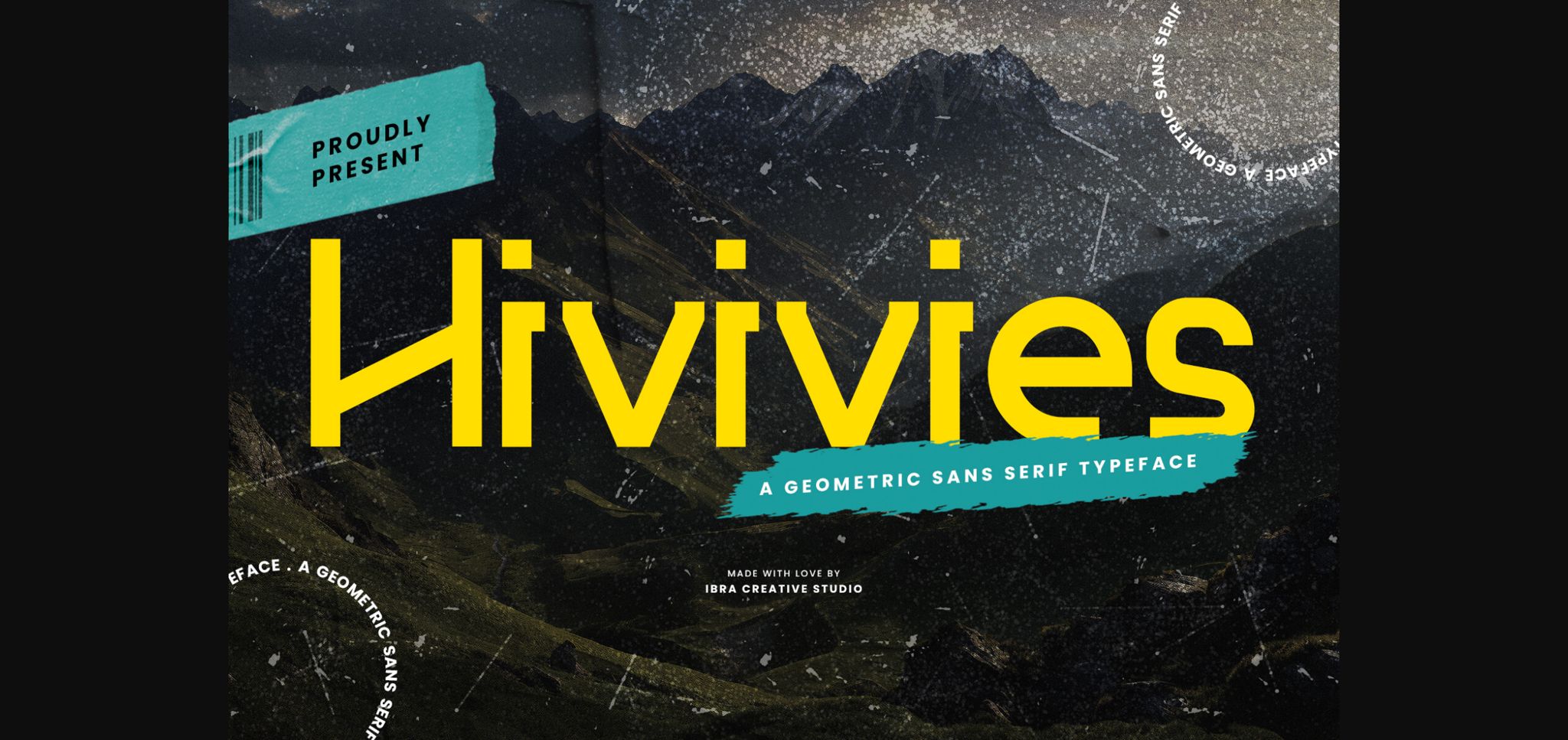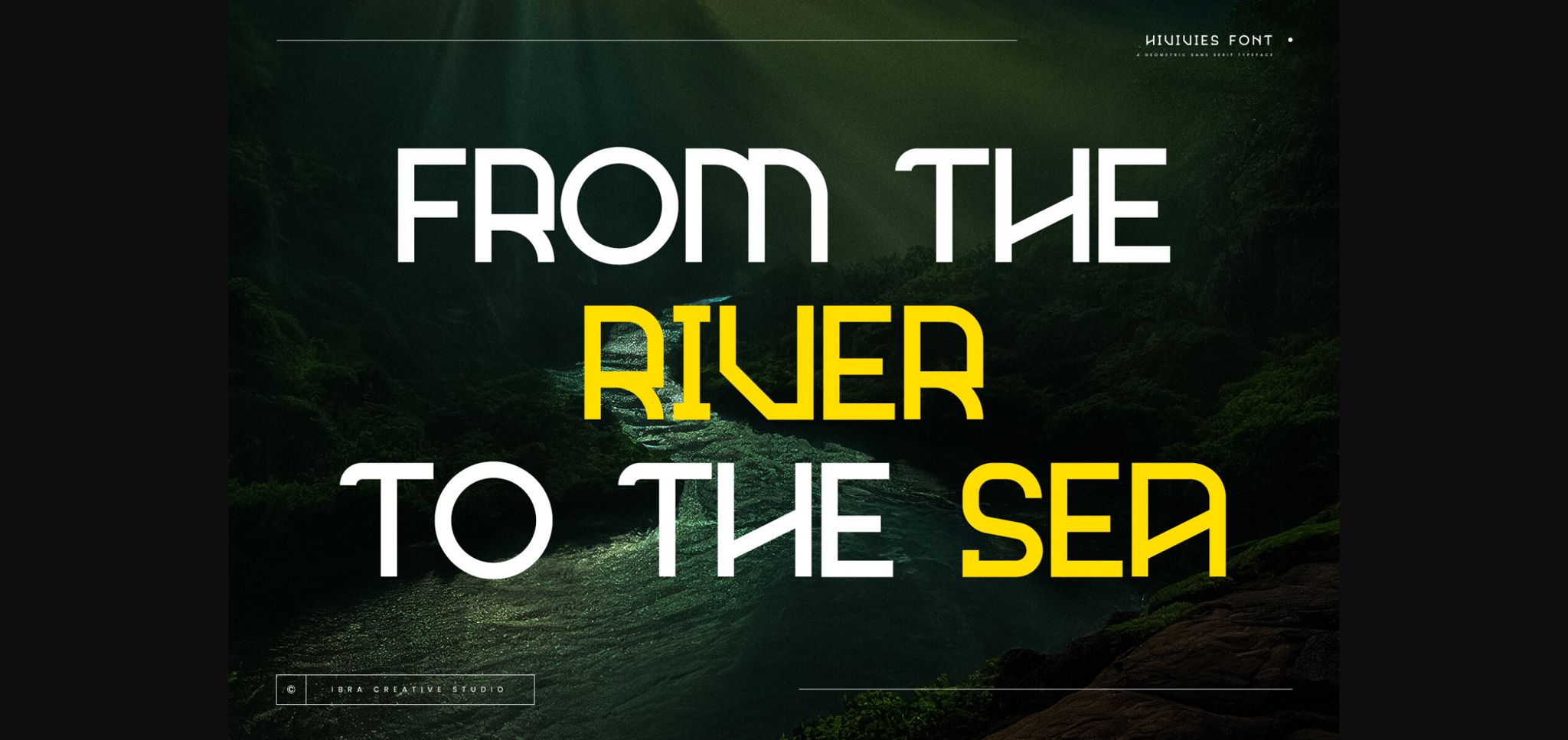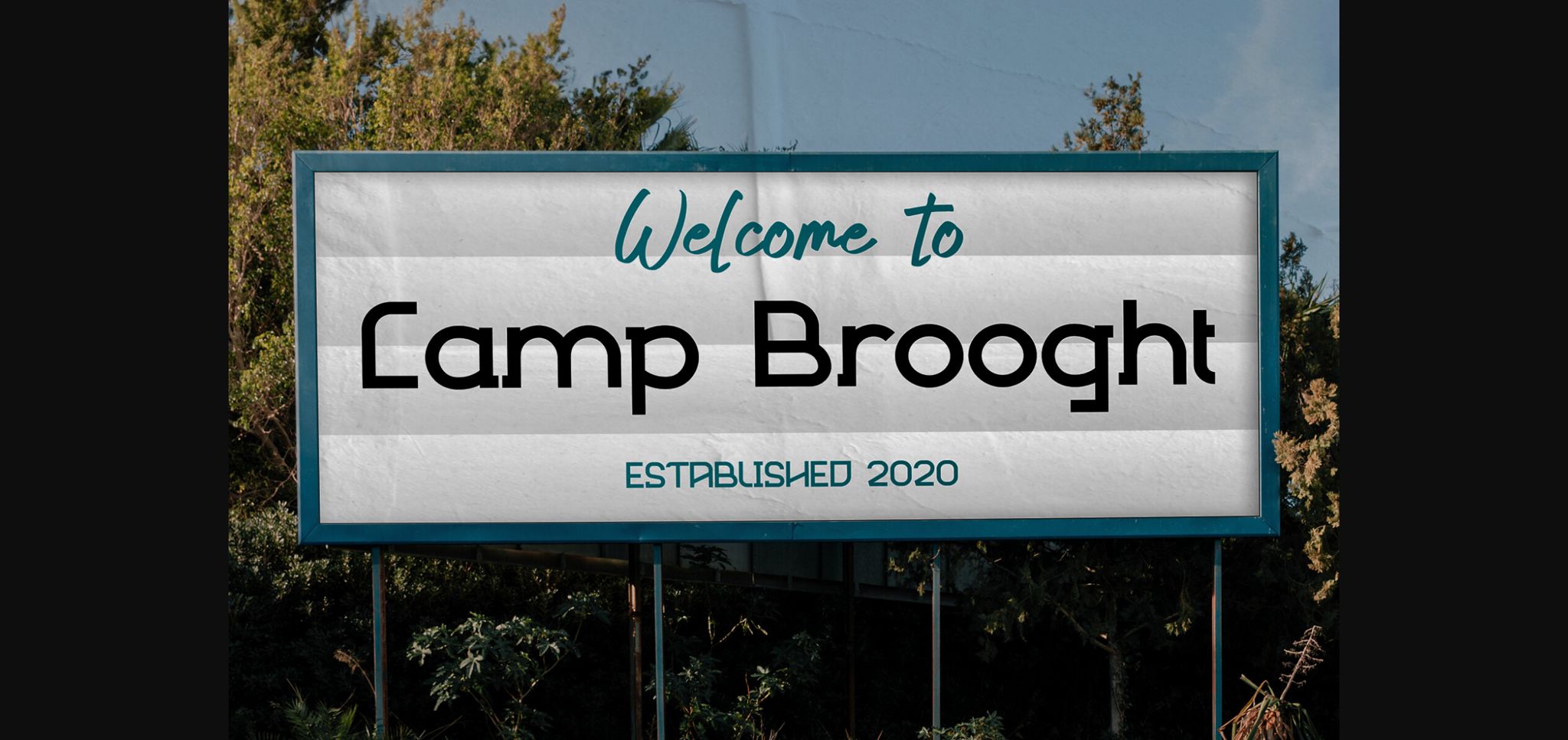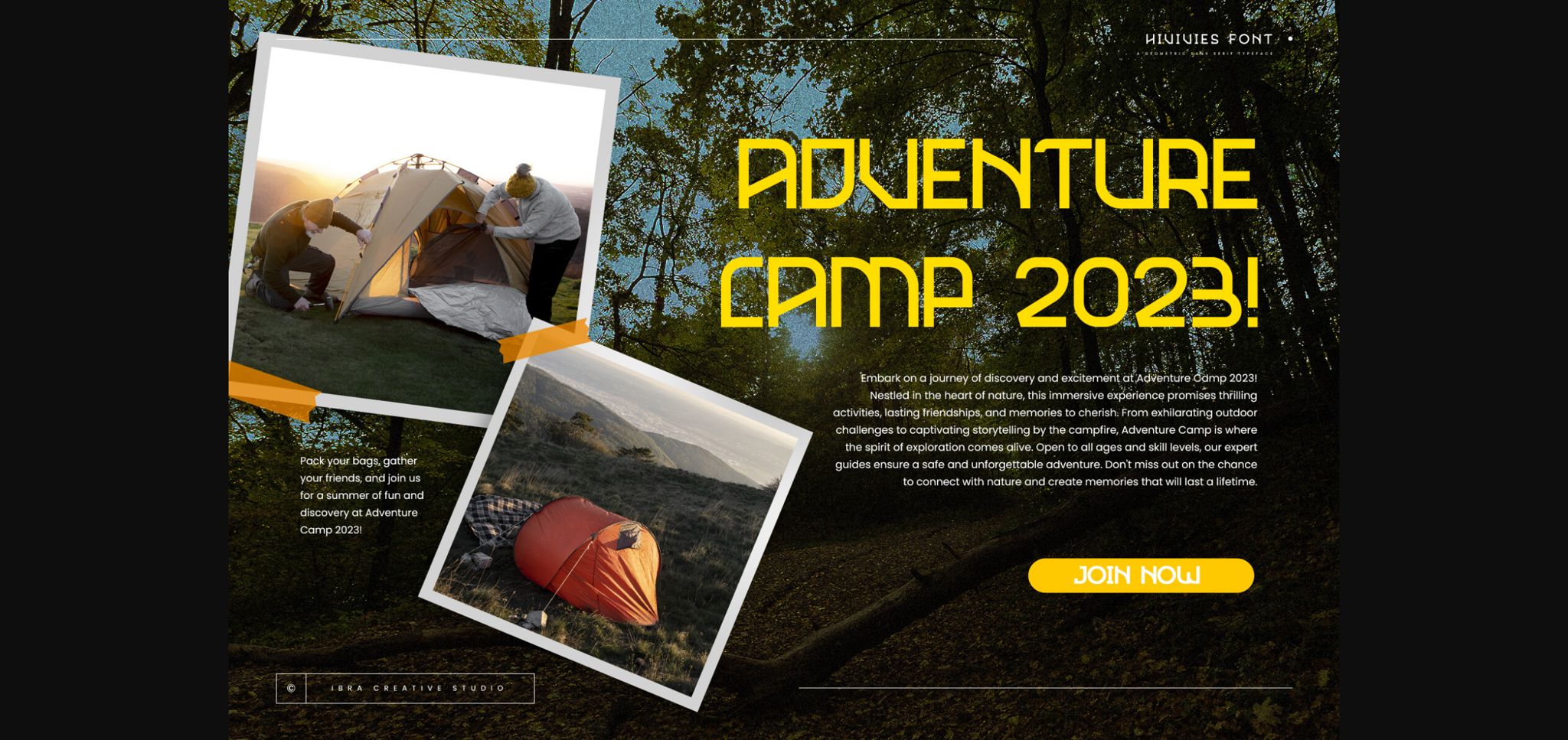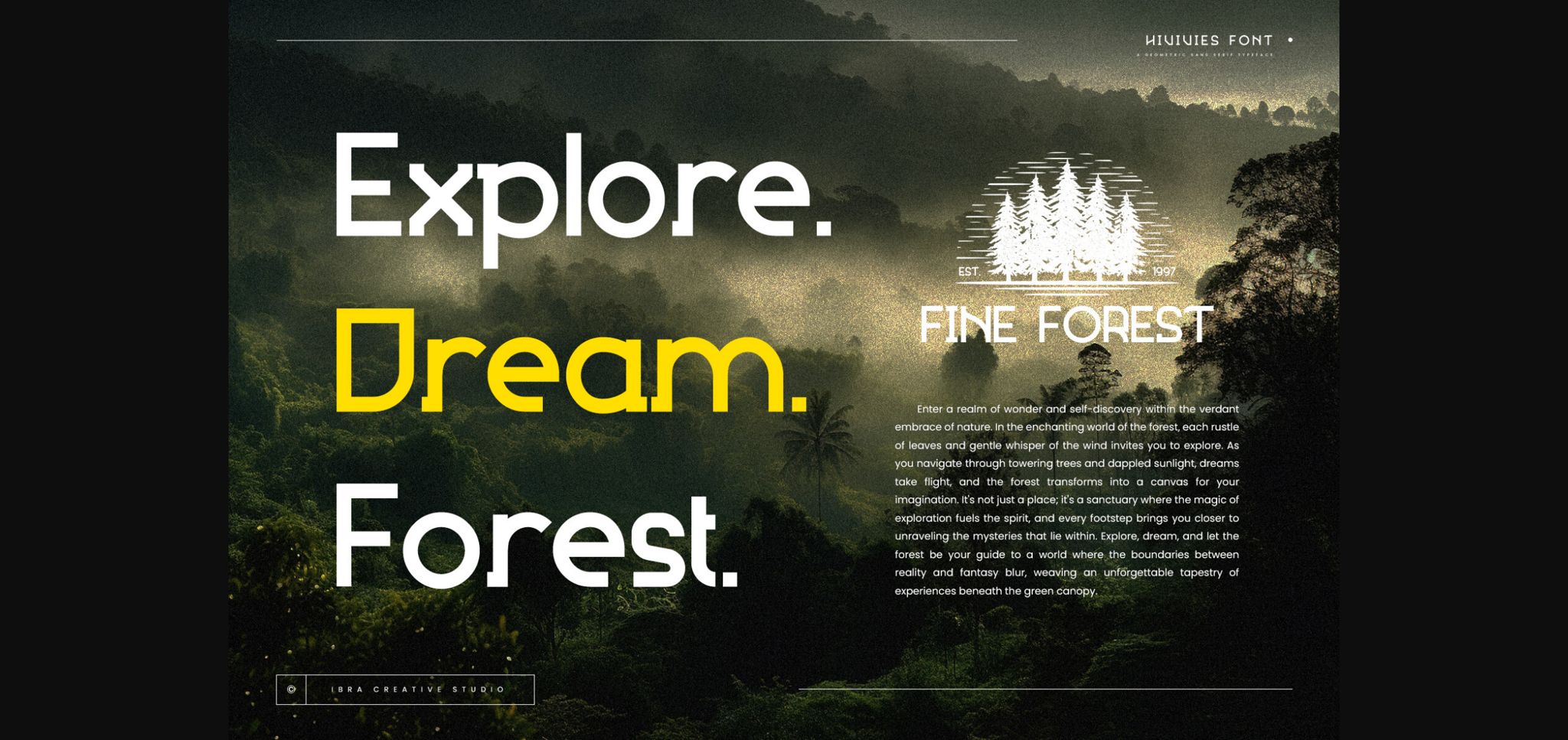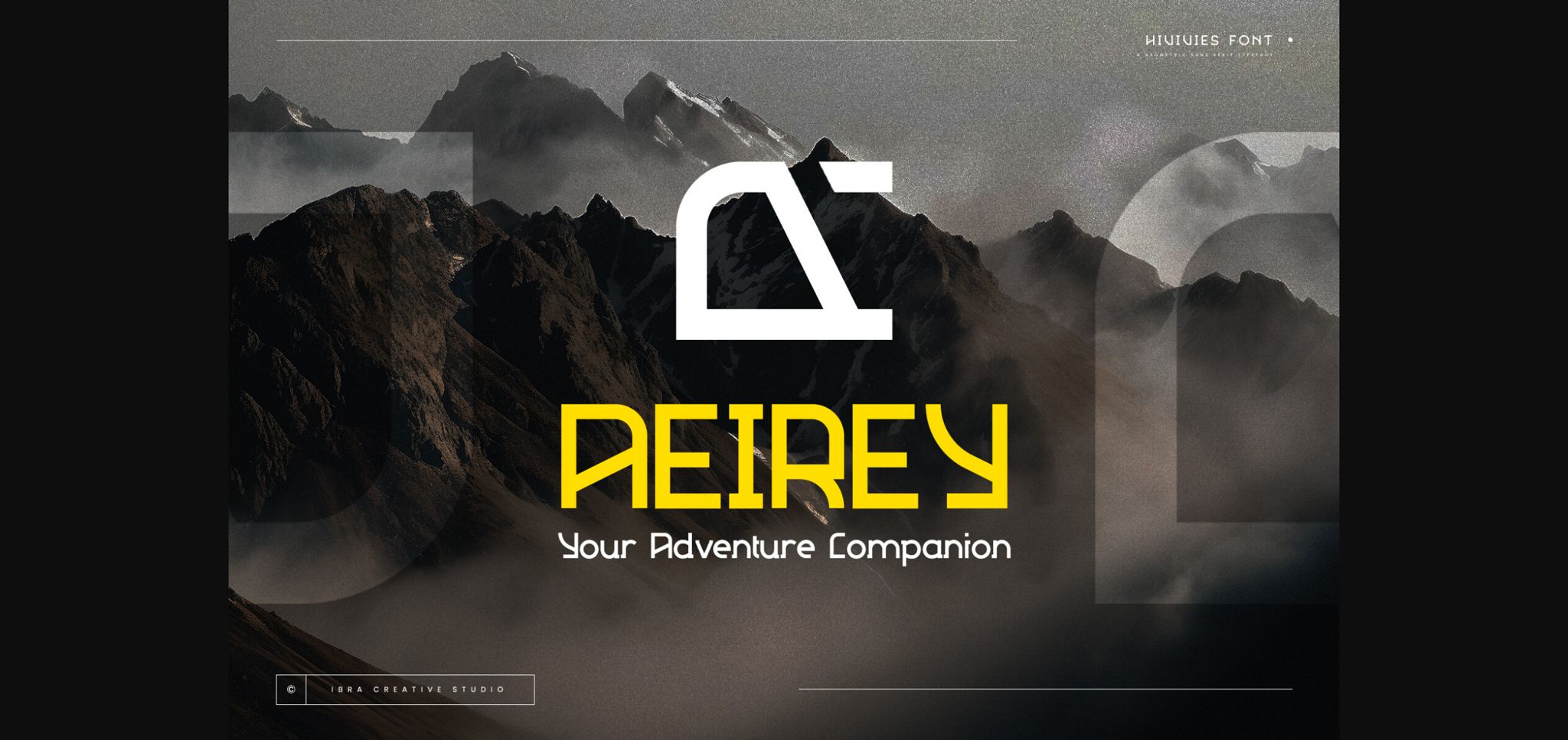
About Hivives Font
Hivives is a contemporary geometric sans serif typeface that embodies a harmonious balance between precision and warmth. With its clean, straight lines and minimalist design, this typeface exudes a modern aesthetic while maintaining a sense of approachability. The geometric construction of Hivivies lends it a distinct and timeless quality, making it versatile for a wide range of design applications. The letterforms are characterized by consistent stroke widths, sharp angles, and well-defined geometric shapes, resulting in a visually cohesive and sophisticated appearance.